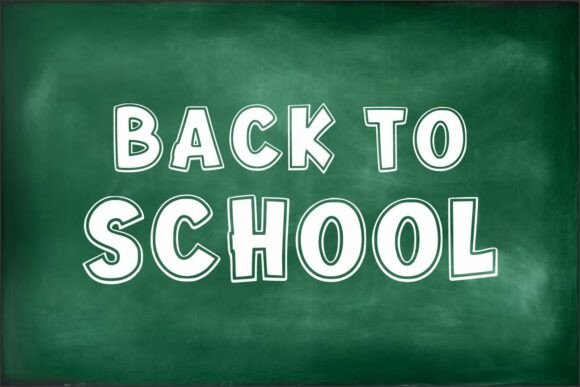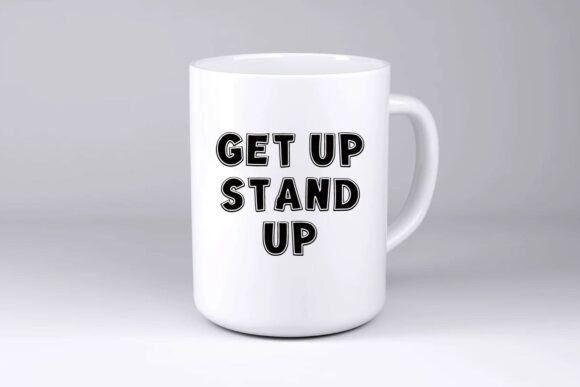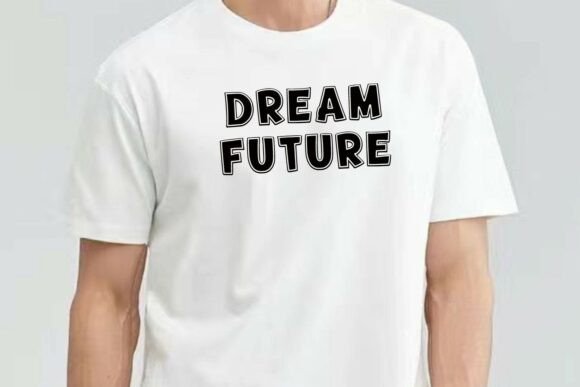
Unlock the Magic of Happy School Font
Remember the excitement of decorating your notebook covers with colorful markers and stickers in school? For many of us, that carefree joy is a cherished memory. As designers, we’re always on the lookout for ways to capture that same magic in our work. Enter the Happy School Font – a charming, whimsical typeface that effortlessly brings a smile to any design.
Perfect for kids’ apparel, greeting cards, and magazine layouts, Happy School Font adds a playful touch to any project. Its clean, vibrant lines make it a winning choice for designers seeking to breathe life into quotes and elevate brand designs with a unique flair. With the Happy School Font, you can tap into that same sense of wonder and excitement, bringing a little extra joy to every design.
Key Features of “Happy School Font”
- Font Family: A sans-serif font family designed to evoke a sense of fun and playfulness in educational settings.
- Character Count: Comprises over 700 characters, including uppercase and lowercase letters, numbers, and special symbols.
- Unique Characteristics: Features a distinctive rounded design with varying stroke widths, giving it a friendly and approachable feel.
Happy School Font Review
At first glance, Happy School Font seems like a playful and charming addition to any educational project. ✨ The font’s rounded edges and simple lines give it a childlike feel that’s perfect for a variety of applications, from children’s books to educational websites.
The font is highly legible, even at small sizes, making it a great choice for body text or captions. The uppercase letters are particularly well-designed, with a nice balance of proportions and flow. ✨ The font also includes a range of alternates and swashes that can add a touch of personality to your design.
- ⚠️ The font lacks a bold weight, which can make it difficult to use for headings or titles.
- ⚠️ Some characters, such as the ‘g’ and ‘j’, have unusual shapes that may not be immediately recognizable.
- ⚠️ The font is not optimized for use at very large sizes, which can lead to a loss of clarity and definition.
Overall, Happy School Font is a fun and versatile choice for designers looking to add a playful touch to their projects. While it may have some limitations, its strengths make it a great option for educational and children’s projects.
Tips for Getting the Most Out of Happy School Font
Use Happy School Font for educational materials, children’s books, and other projects that require a playful and approachable tone.
Experiment with different font sizes and styles to create visual interest and emphasize important information.
Combine Happy School Font with other playful fonts and graphics to create a cohesive and engaging visual identity.
Happy School Font is perfect for:
Children’s book covers and illustrations
Education and learning materials
Playful websites and social media graphics
Party invitations and decorations
Alternatives to Happy School Font
Comic Sans MS is a sans-serif font that is often used for informal and playful designs. It is ideal for creating a friendly and approachable atmosphere. Compared to Happy School Font, Comic Sans MS has a more casual and relaxed feel, making it suitable for everyday use.
Great Vibes is a script font that conveys a sense of fun and optimism. It is perfect for designs that require a touch of elegance and sophistication. Unlike Happy School Font, Great Vibes has a more refined and polished look, making it suitable for high-end designs.